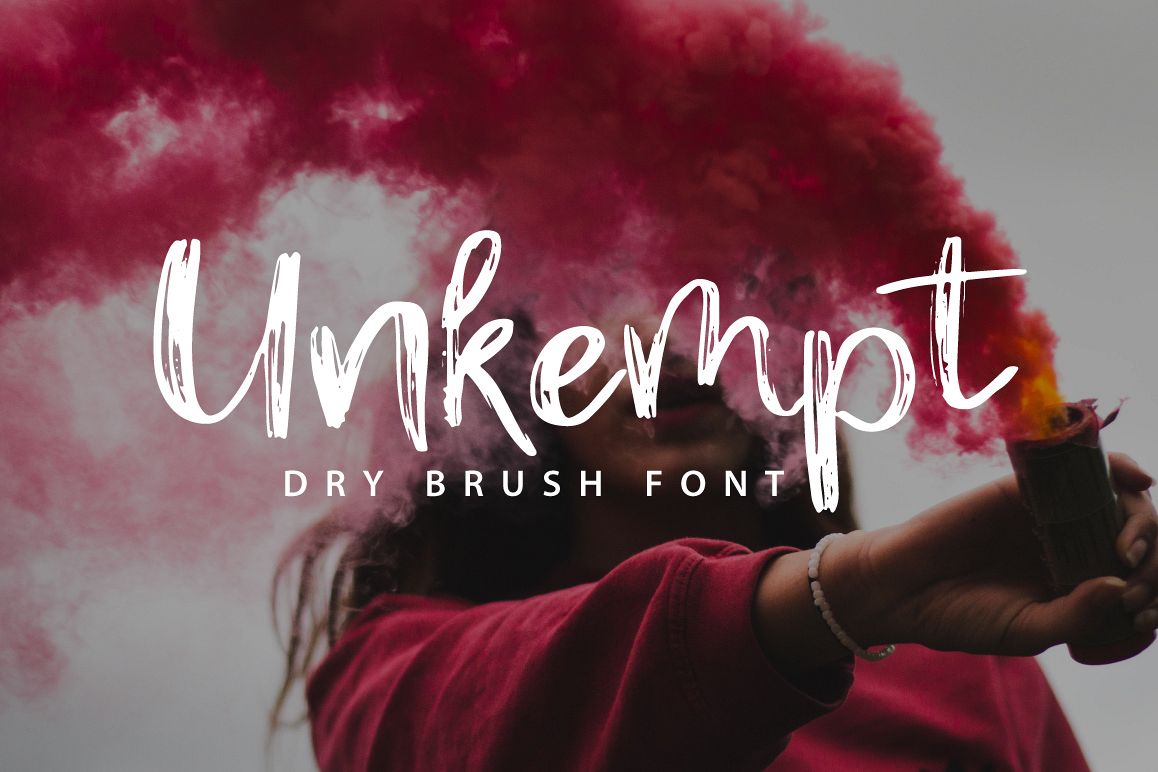
I'm really excited to present our freshest font - Unkempt Dry Brush Font
Unkempt is hand-painted typeface designed to help you create your good project.
Unkempt comes with upper and lowercase characters, punctuation, numerals, and supports international languages. check it, to be sure